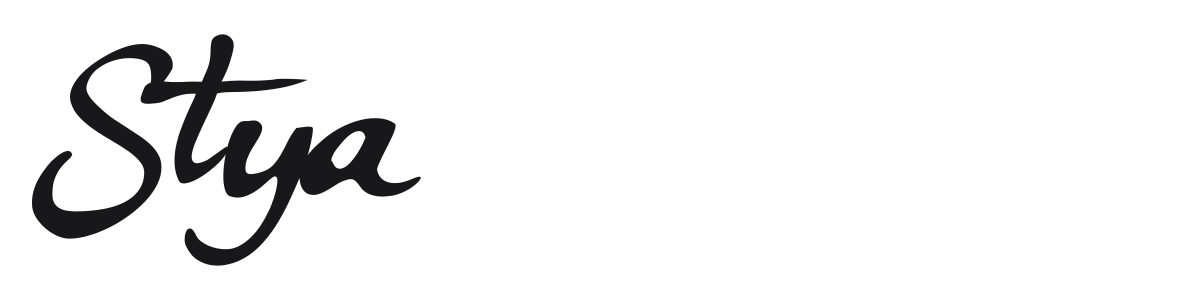
Stya
Stya is a lively brush script with natural ink texture and strong stroke contrast between thick swells and hairline thin strokes. The letters flow with a fast, confident rhythm that reads as genuinely hand-lettered rather than mechanical. It carries the kind of loose energy that works well in food, fashion, or any branding that wants to feel human.